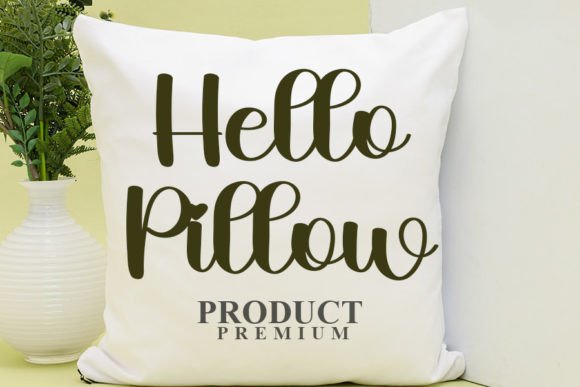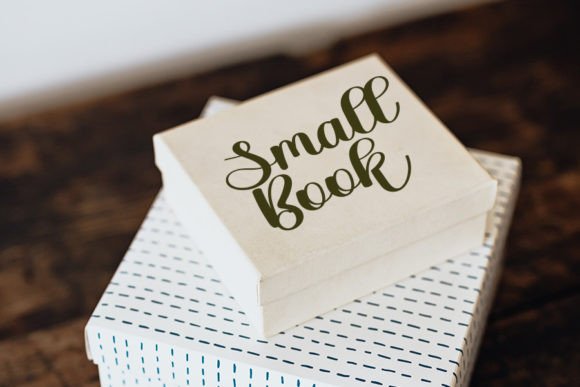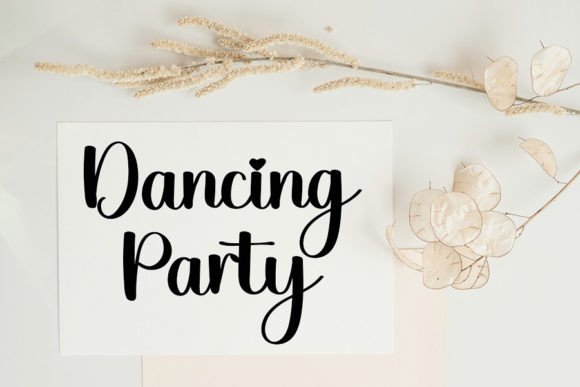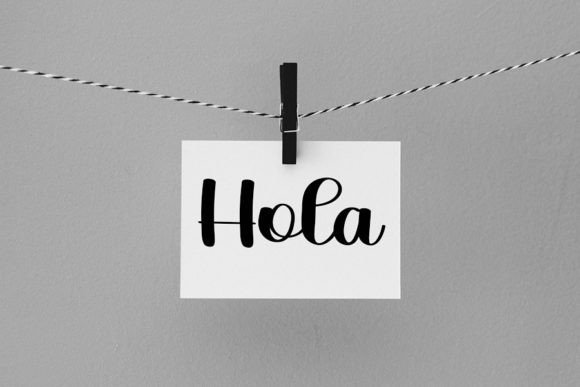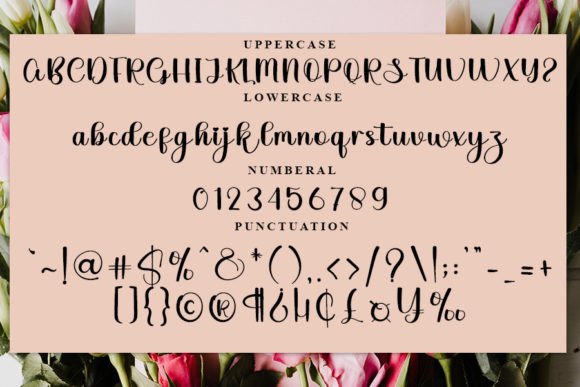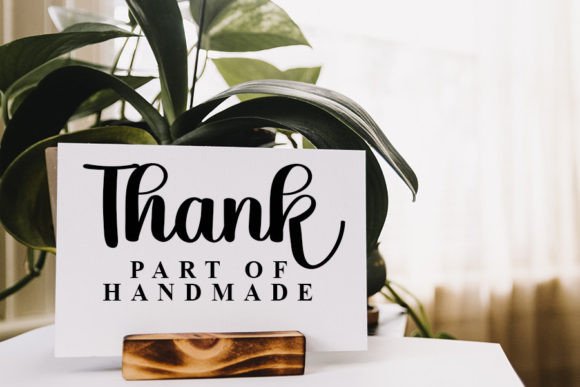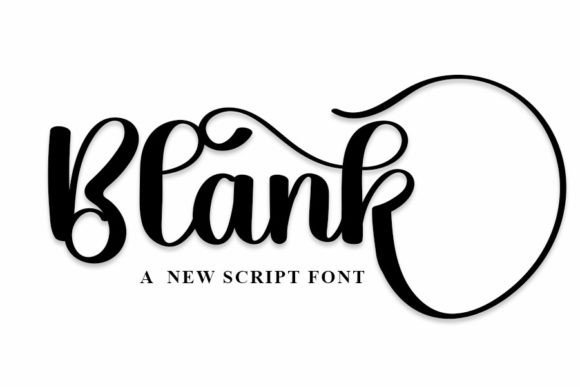
Introducing Blank Font: Elevate Your Designs with Elegance and Sophistication
In the world of typography, a font can make or break a design. For designers and crafters seeking a touch of elegance and modernity, Blank Font is an exquisite choice. This beautiful, refined handwritten font is perfect for a wide range of applications, from logos and branding to invitations, stationery, wedding designs, and social media posts.
What Makes Blank Font Stand Out?
Blank Font boasts a classy and contemporary aesthetic, making it an ideal choice for designers who want to add a touch of sophistication to their work. Its refined handwritten style exudes elegance, ensuring that your designs stand out from the crowd. Whether you’re working on a logo, branding materials, or creative projects, Blank Font provides the perfect blend of style and versatility.
PUA Encoding: Easy Access to Glyphs and Ligatures
One of the key features that sets Blank Font apart is its PUA (Private Use Area) encoding. This means that accessing the font’s amazing glyphs and ligatures is incredibly easy. With PUA encoding, you can effortlessly incorporate swashes, flourishes, and other decorative elements into your designs, taking them to the next level.
Endless Design Possibilities with Blank Font
The versatility of Blank Font is one of its most significant advantages. This font can be used for a wide range of design projects, including:
- Logos and Branding: Create a lasting impression with a custom logo that exudes elegance and sophistication.
- Invitations and Stationery: Add a touch of refinement to your invitations, greeting cards, and stationery.
- Wedding Designs: Make your wedding designs truly unforgettable with Blank Font’s beautiful, handwritten style.
- Social Media Posts: Elevate your social media presence with eye-catching posts that showcase your brand’s personality.
Why Choose Blank Font?
- Unique and Versatile: Blank Font offers a distinctive style that can be used for a wide range of design projects.
- Elegant and Refined: This font exudes sophistication and elegance, making it perfect for designers who want to create high-end designs.
Tips for Getting the Most Out of Blank Font
Blank Font is a beautiful, refined handwritten font that offers a world of creative possibilities. With its elegant and modern style, PUA encoding, and versatility, it’s the perfect choice for designers and crafters seeking to elevate their designs. Whether you’re working on logos, branding, invitations, or social media posts, Blank Font is sure to make a lasting impression.